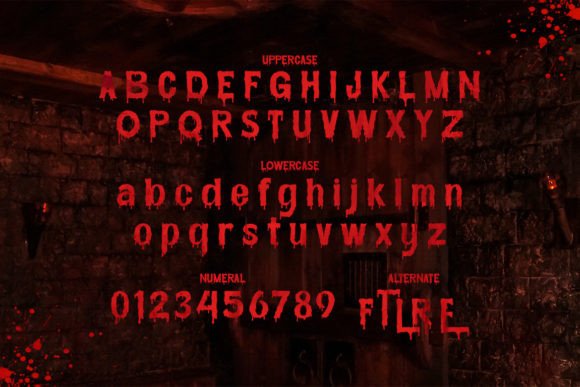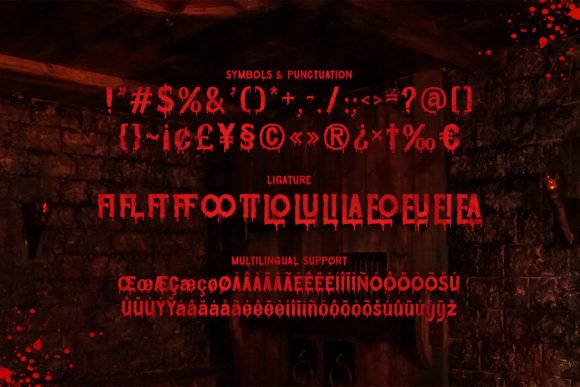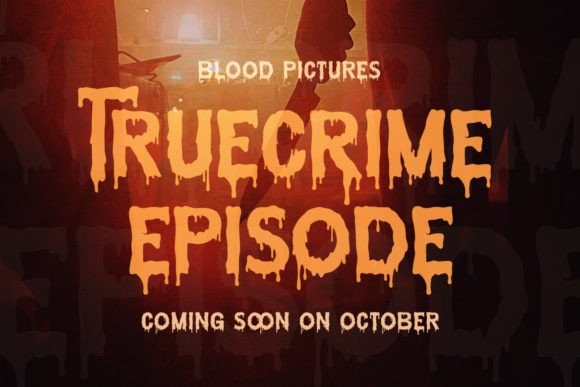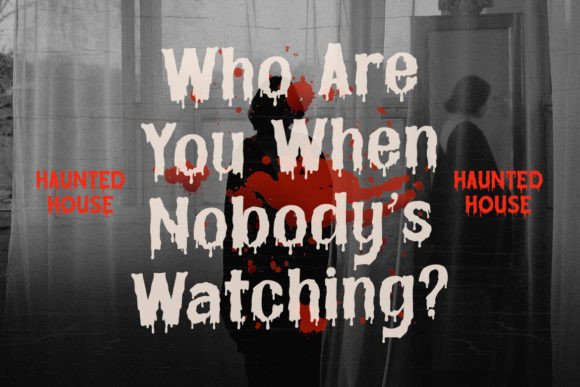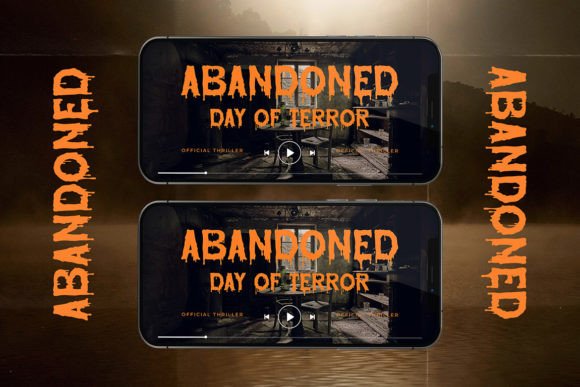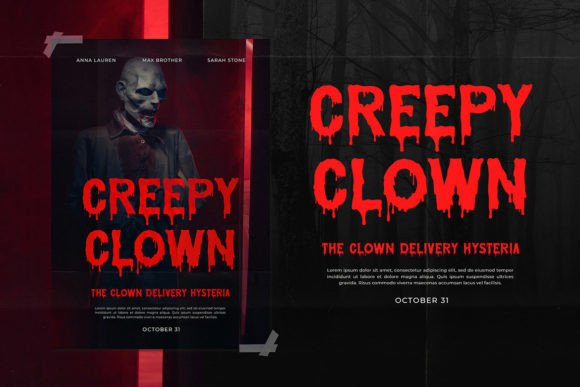
Unleash the Horror with Grimes Blood Font: The Ultimate Display Font for Scary Crafts and Designs
Are you a designer, crafter, or horror movie enthusiast looking for a font that will add a touch of eeriness and thrill to your projects? Look no further than Grimes Blood Font, a bloody, horror-looking display font that is sure to make your scary crafts, horror movie posters, t-shirts, and other designs stand out.
What is Grimes Blood Font?
Grimes Blood Font is a unique and terrifying display font that is perfect for creating horror-themed designs. With its bloody and eerie appearance, this font is sure to grab attention and send chills down the spine. Whether you’re designing a poster for a horror movie, creating a t-shirt for a Halloween party, or making scary crafts, Grimes Blood Font is the perfect choice.
Key Features of Grimes Blood Font
- Horror-themed design: Grimes Blood Font has a bloody and eerie design that is perfect for horror-themed projects.
- Display font: This font is specifically designed as a display font, making it perfect for headlines, titles, and other attention-grabbing elements.
- High-quality design: Grimes Blood Font is designed with high-quality graphics, ensuring that it looks sharp and clear even at large sizes.
Uses for Grimes Blood Font
Grimes Blood Font is a versatile font that can be used for a wide range of projects, including:
- Horror movie posters: Add a touch of horror to your movie posters with Grimes Blood Font.
- Scary crafts: Use Grimes Blood Font to add a creepy touch to your Halloween crafts, such as decorations, cards, and gift tags.
- T-shirts and apparel: Create eye-catching t-shirts and apparel with Grimes Blood Font.
- Social media graphics: Use Grimes Blood Font to create attention-grabbing social media graphics, such as Facebook posts and Instagram stories.
Tips for Using Grimes Blood Font
Here are some tips for getting the most out of Grimes Blood Font:
- Use it sparingly: Grimes Blood Font is a bold font, so use it sparingly to avoid overwhelming your design.
- Pair it with other fonts: Pair Grimes Blood Font with other fonts to create a unique and interesting design.
- Experiment with colors: Experiment with different colors to find the perfect combination for your design.
Grimes Blood Font is a unique and terrifying display font that is perfect for designers, crafters, and horror movie enthusiasts. With its bloody and eerie appearance, this font is sure to add a touch of horror to your projects. Whether you’re creating scary crafts, horror movie posters, t-shirts, or social media graphics, Grimes Blood Font is the perfect choice. So why wait? Download Grimes Blood Font today and unleash the horror in your designs!